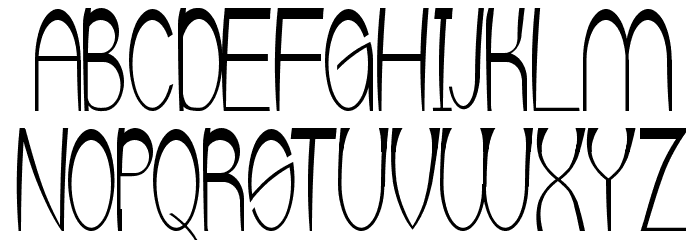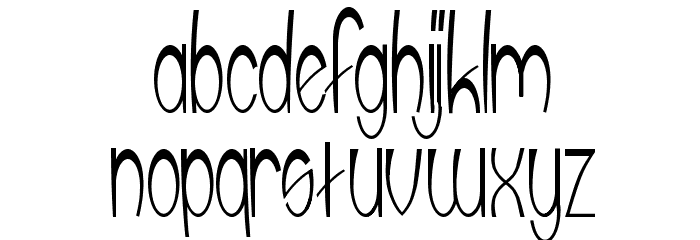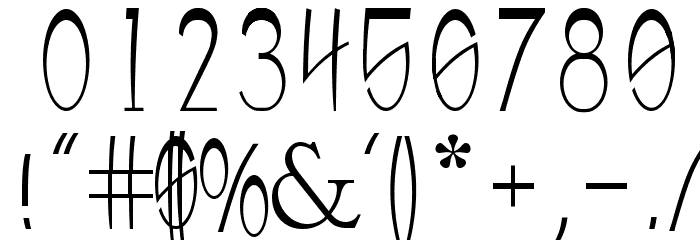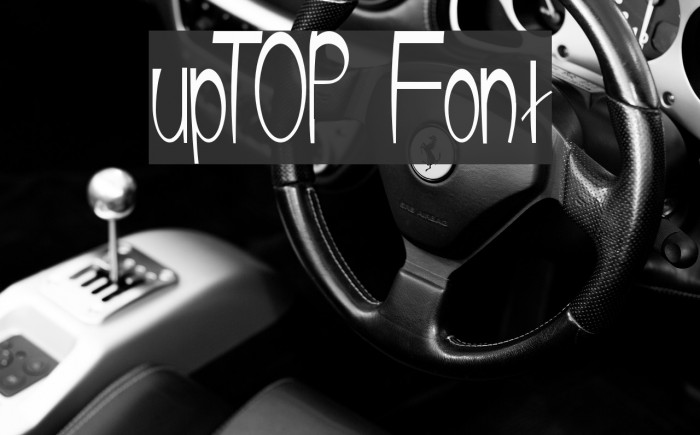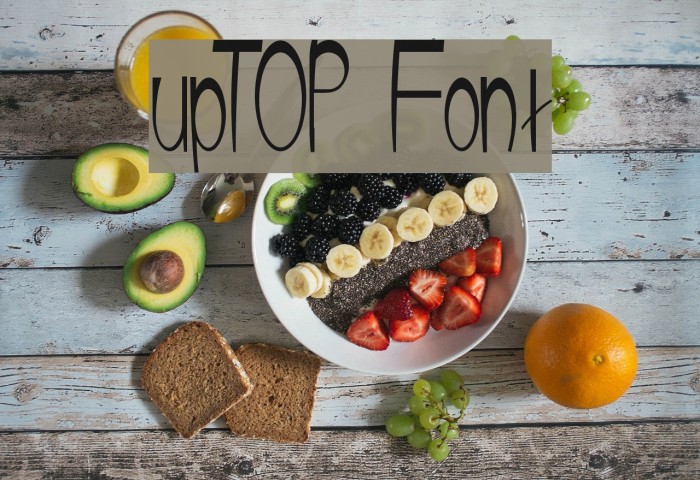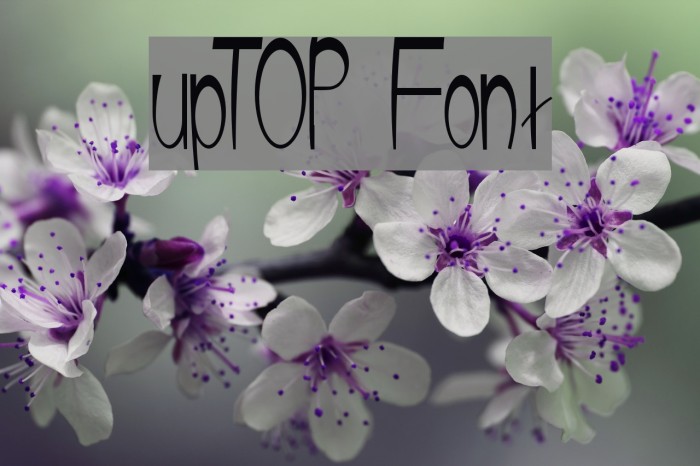
upTOP Font
This font features a playful and whimsical design with elongated and narrow letterforms. The uppercase letters are tall and slender, while the lowercase letters maintain a consistent style with a slightly rounded appearance. The numbers follow the same elongated style, adding a unique flair to the overall look. Special characters are creatively integrated, maintaining the font's distinctive personality. The font's design is both modern and artistic, making it suitable for creative projects that require a touch of elegance and fun.
A playful, elongated font with a whimsical and modern style.
- Proposed Projects: Ideal for children's book covers, playful branding, creative posters, and artistic invitations.
- Overall Style: Modern, Artistic
- Use Case: Headlines, Logos, Creative projects